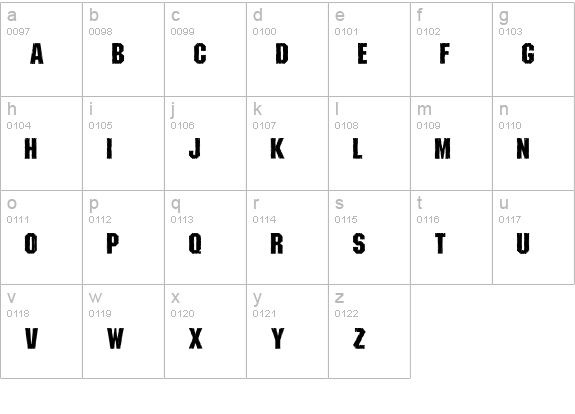
Shredded Font Details
Introducing Shredded font, a beautifully crafted typeface that exudes a raw and edgy vibe. With its uniquely sliced and torn letterforms, this font adds a touch of grunge and rebellion to any design project. Whether you're working on a poster for a rock concert, a magazine layout, or a logo for a cutting-edge brand, Shredded font will make a powerful statement. This font is not only visually striking, but it also boasts exceptional versatility. Its bold and jagged letterforms can be easily scaled and manipulated to suit various design needs. The distinct texture of Shredded font brings an element of authenticity and character to your work, making it stand out from the crowd. But what truly sets Shredded font apart is that it is free. That's right – this incredible font is freely available to download at FontsMarket.com. We believe that great design should be accessible to everyone, and that's why we've made Shredded font readily available for your creative endeavors. So go ahead and unleash your inner rebel with Shredded font. Download it for free today and let your designs speak volumes with its striking and unconventional aesthetic. Whether you're a seasoned designer or just starting out, Shredded font is the perfect tool to elevate your creations to new heights. Get ready to make a bold statement and leave a lasting impression with Shredded font, the free font that packs a punch.